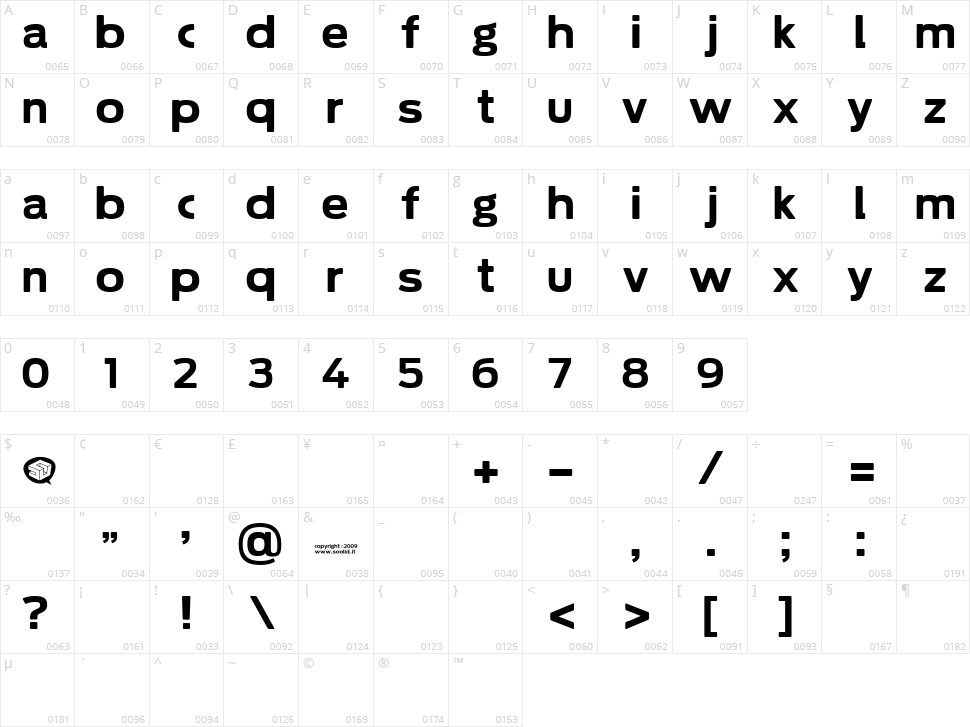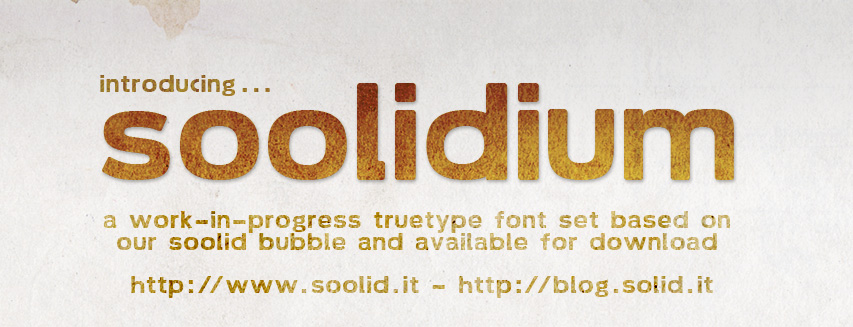
* SOOLIDIUM TTF v 0.91*
*Created on August 2009 by Alberto Alberti*
As you'll notice soolidium not a complete font set but a
work in progress that requires many adjustments and bug fixes.
You'll probably don't cares at all but soolidim is the
font used for our soolid logo